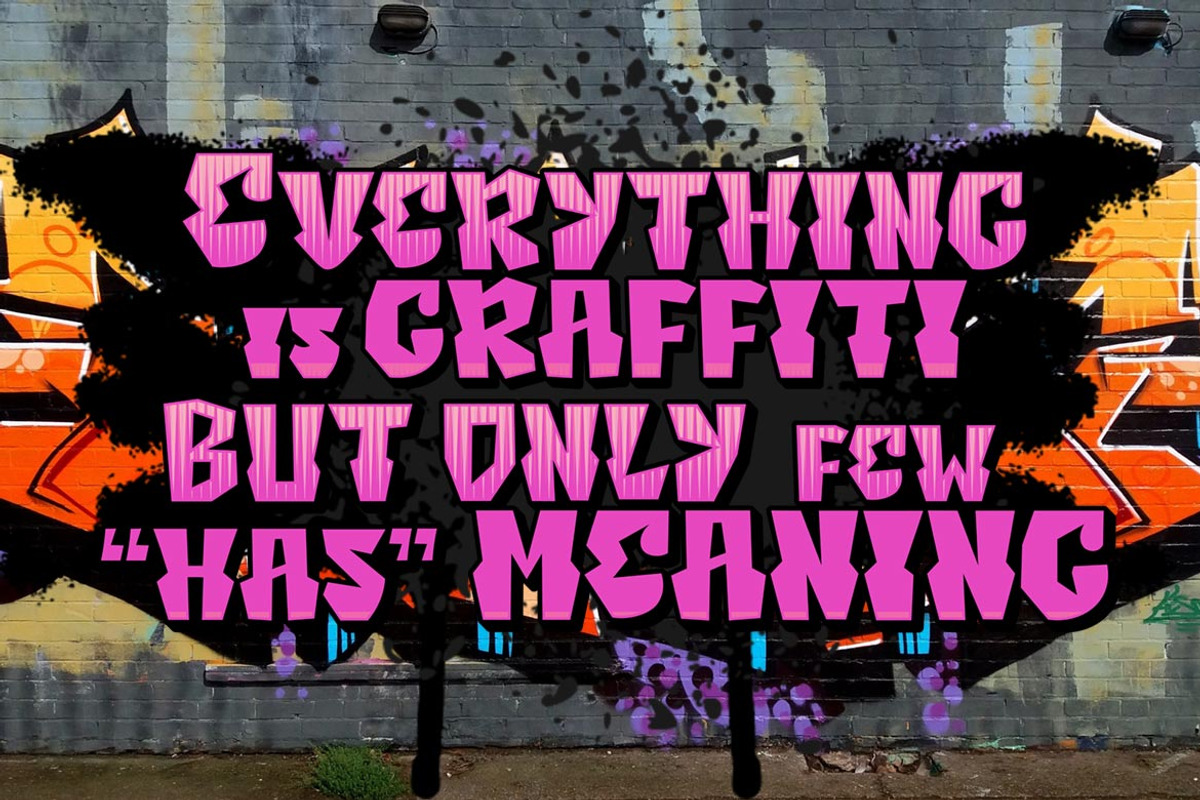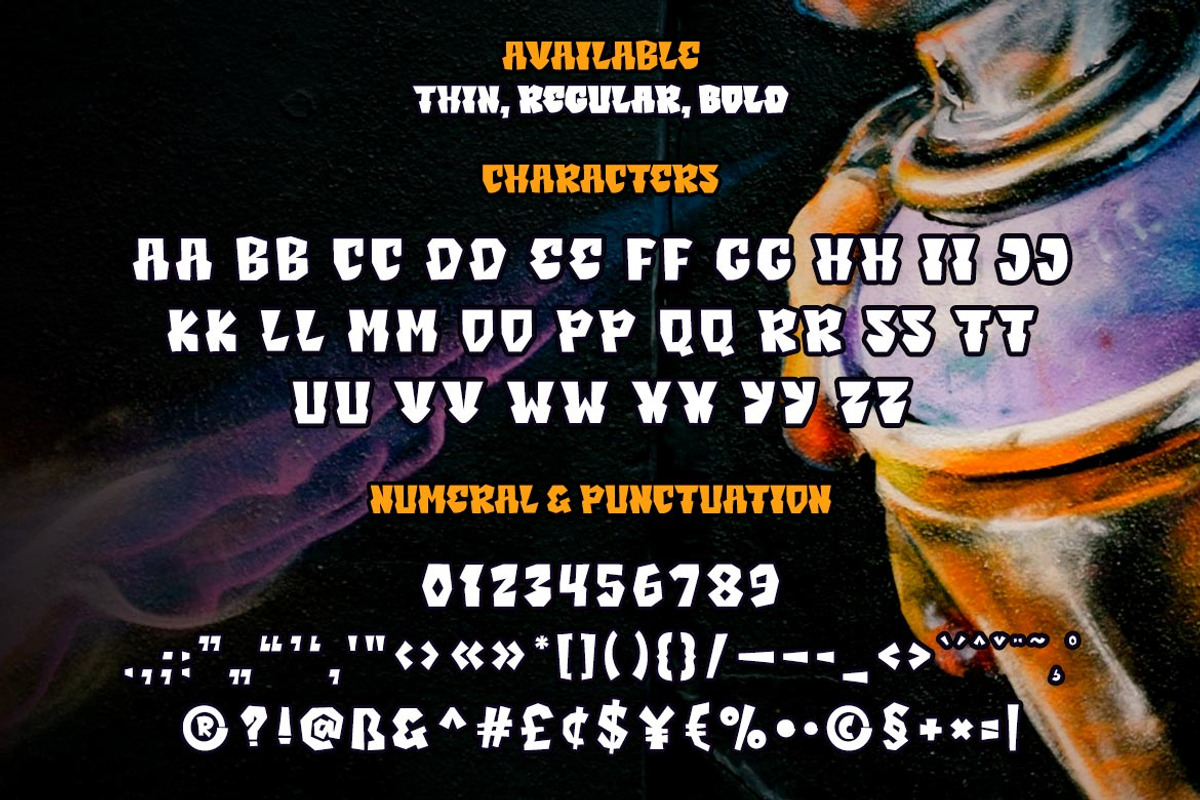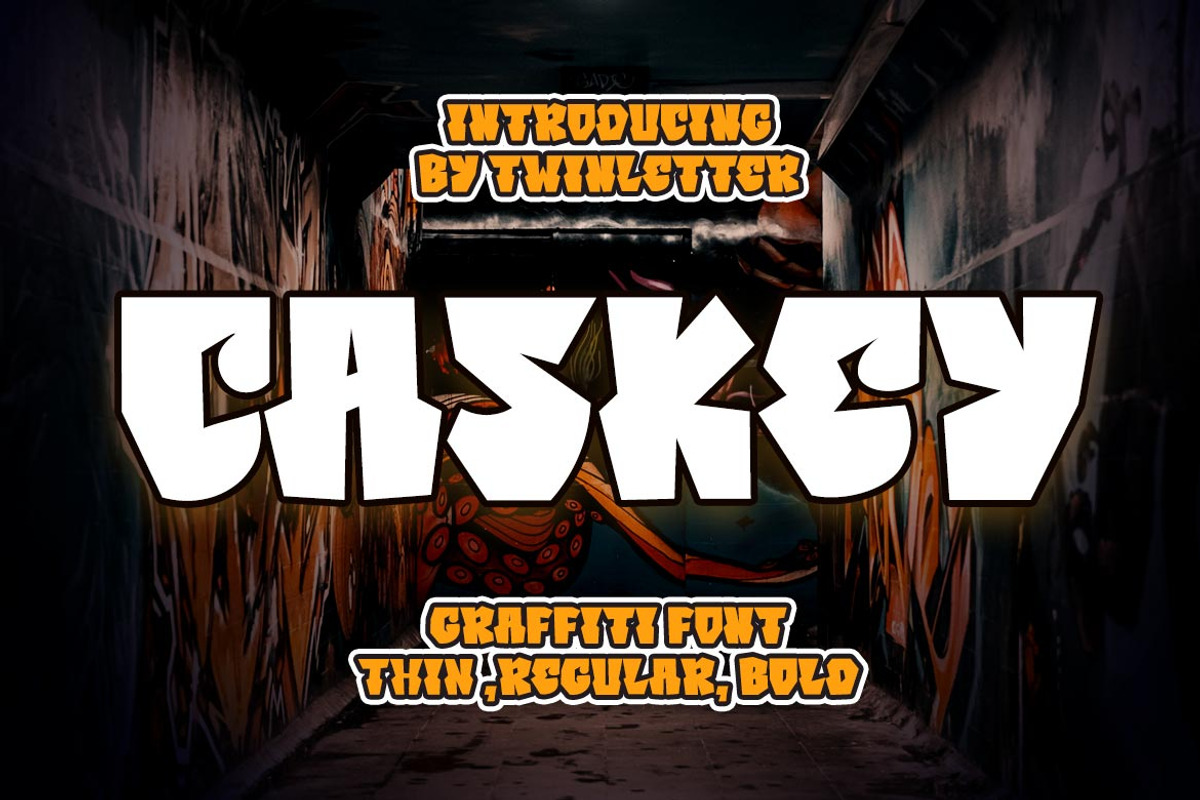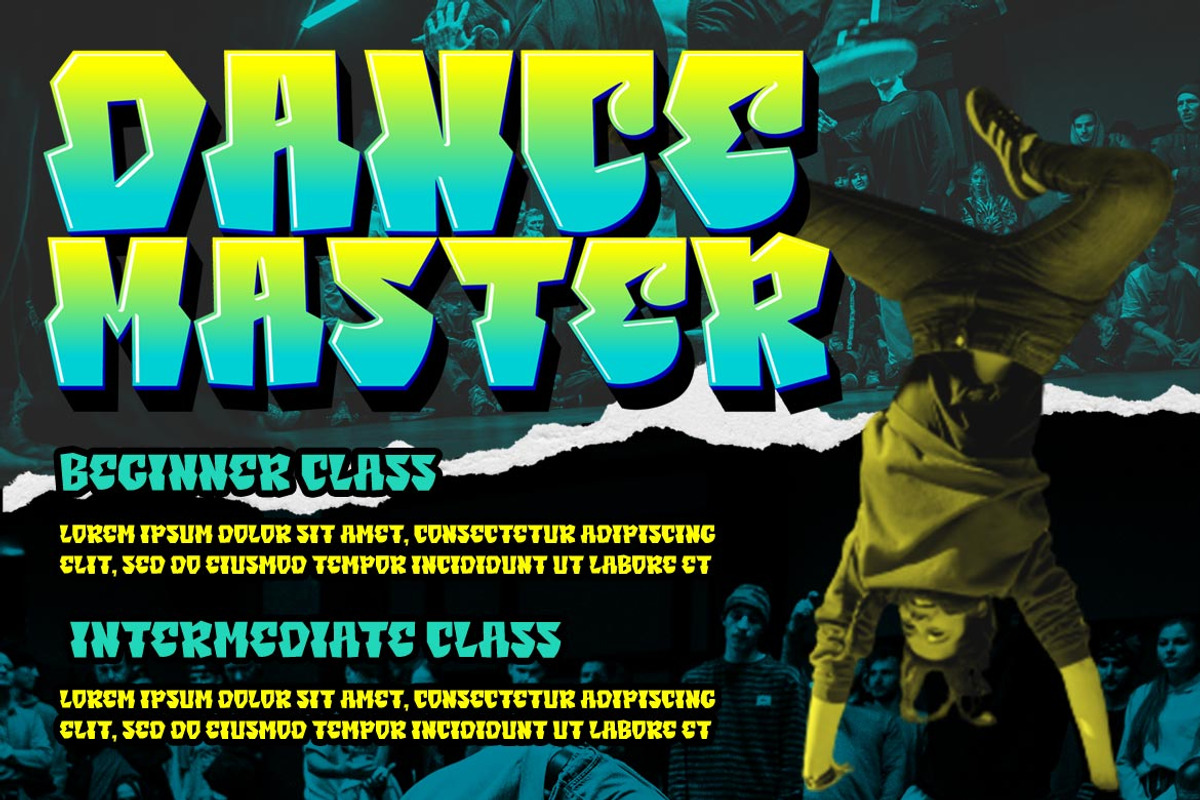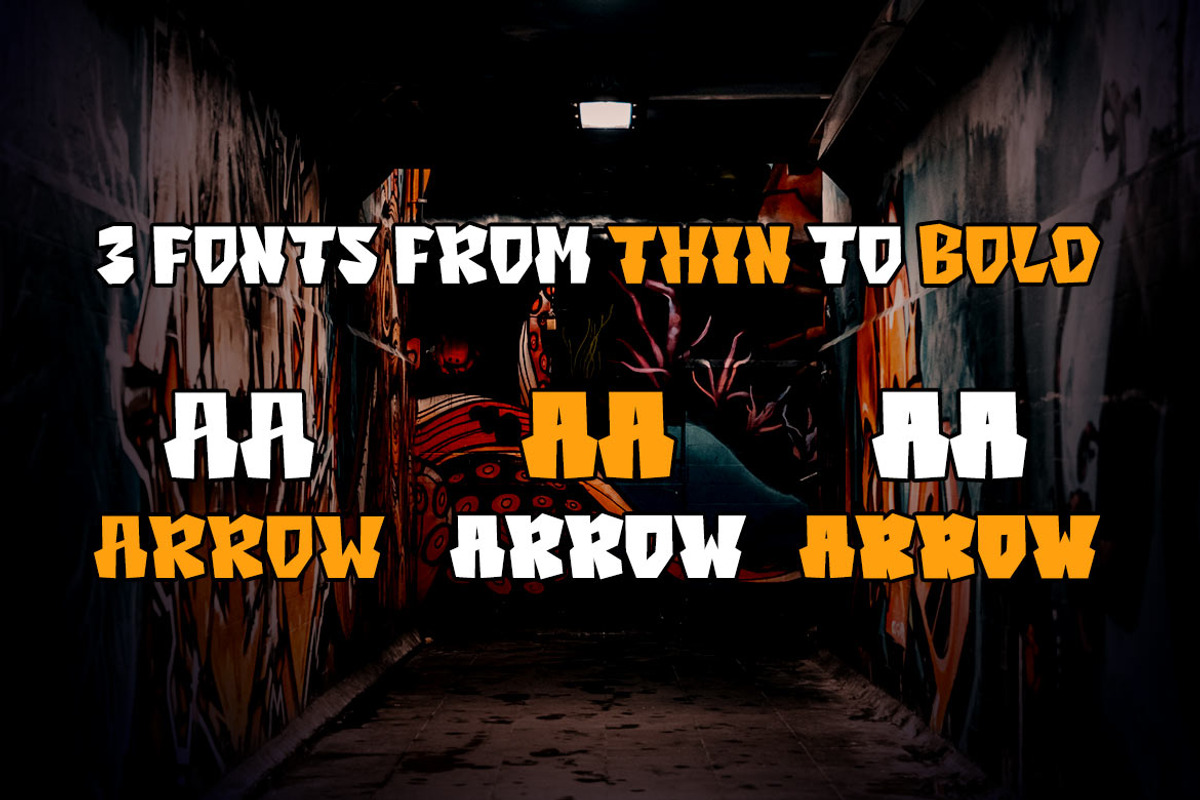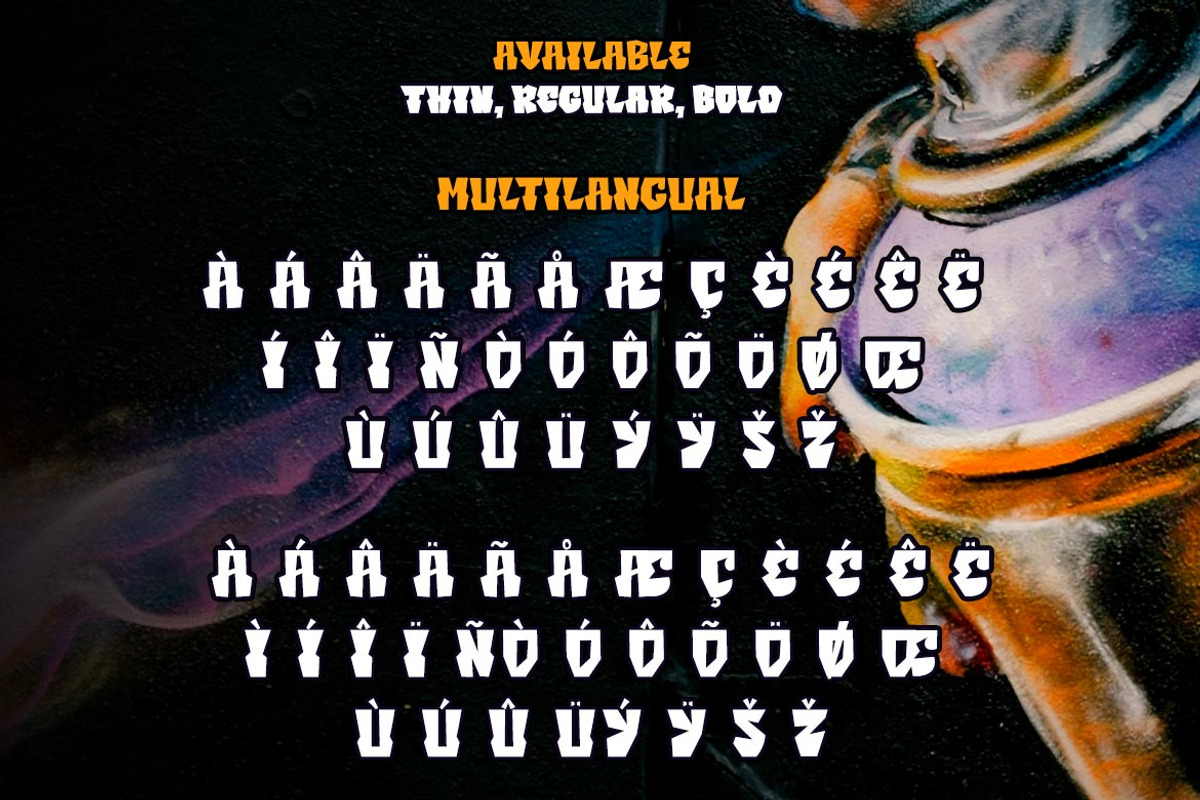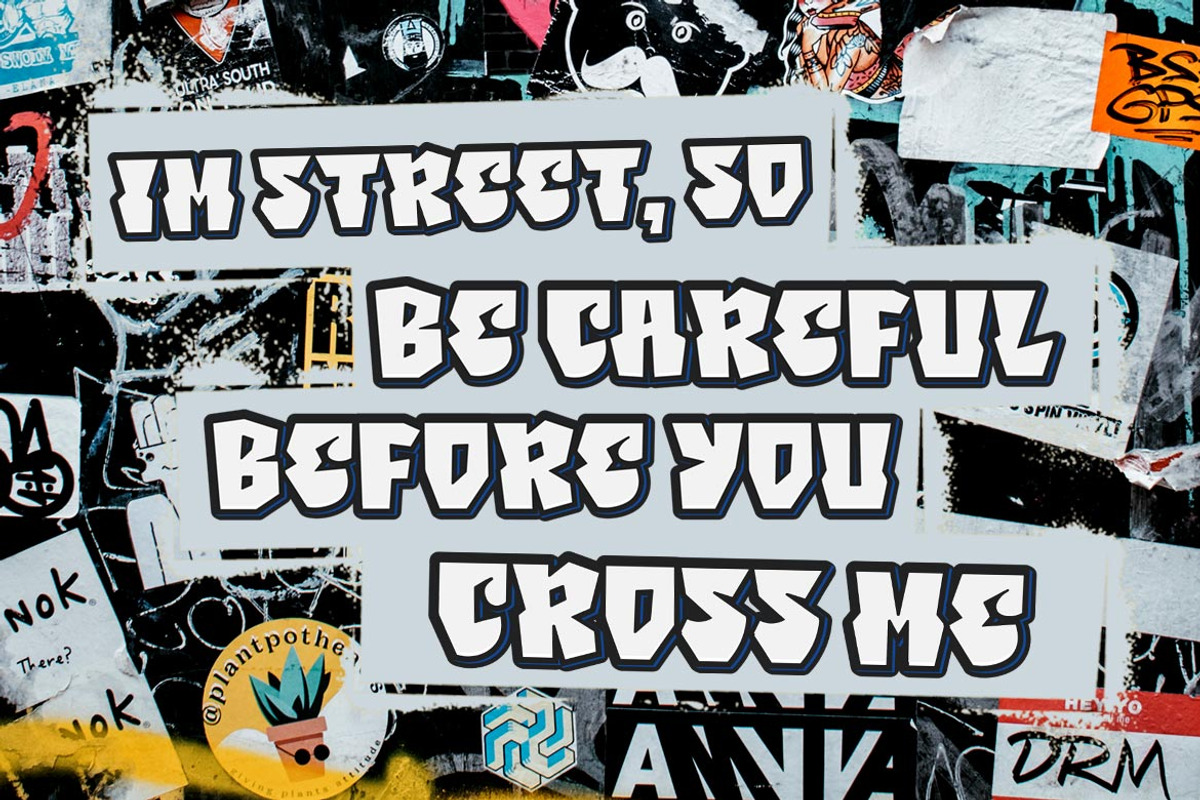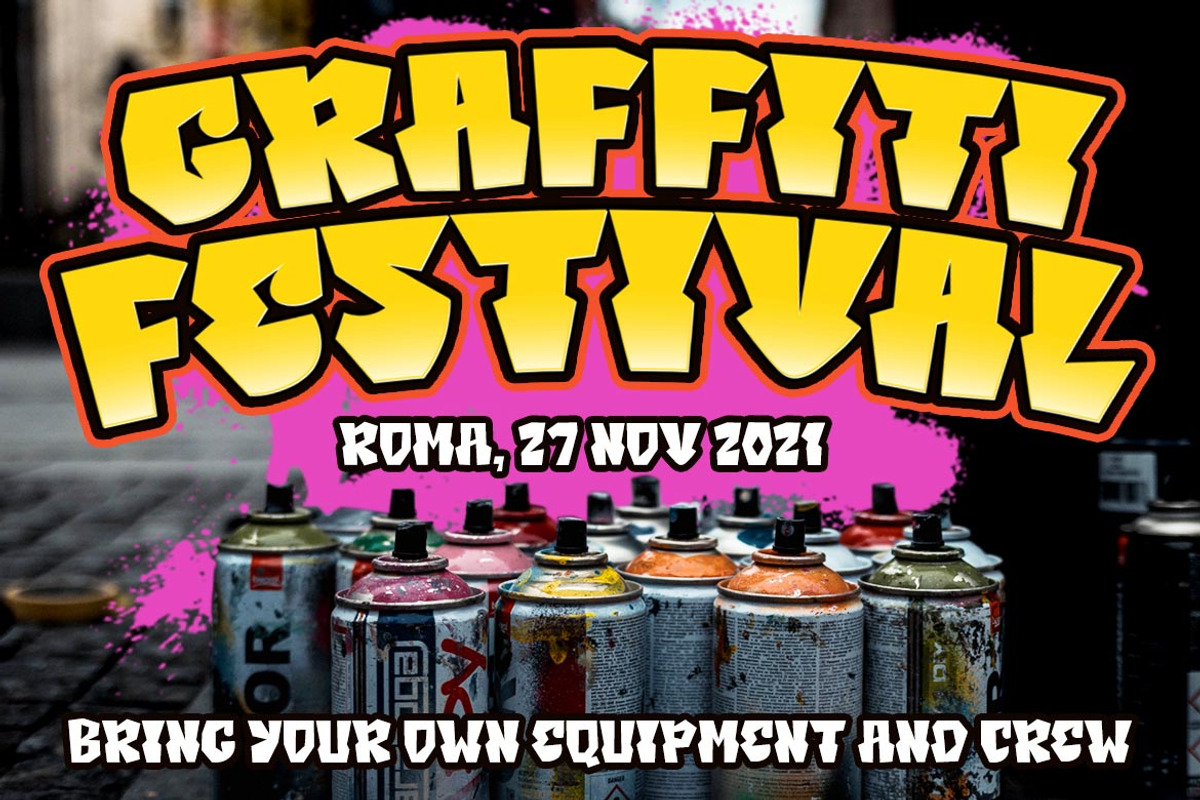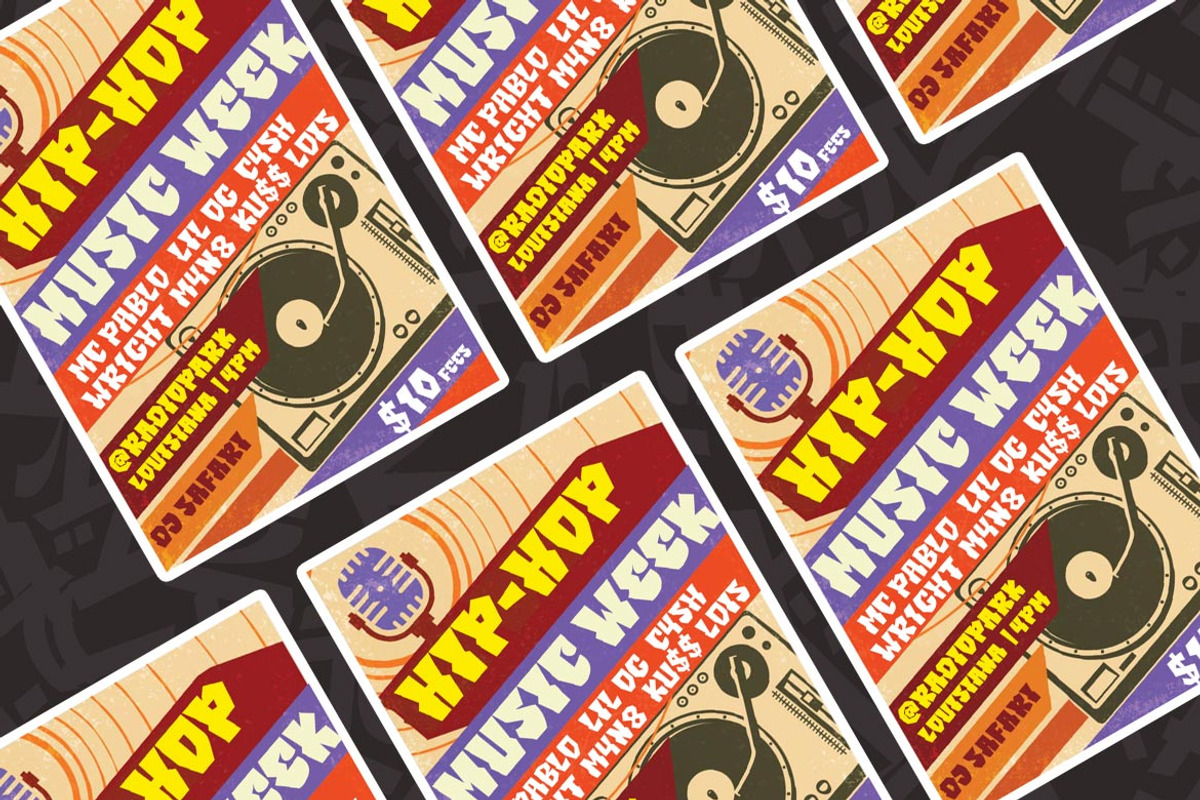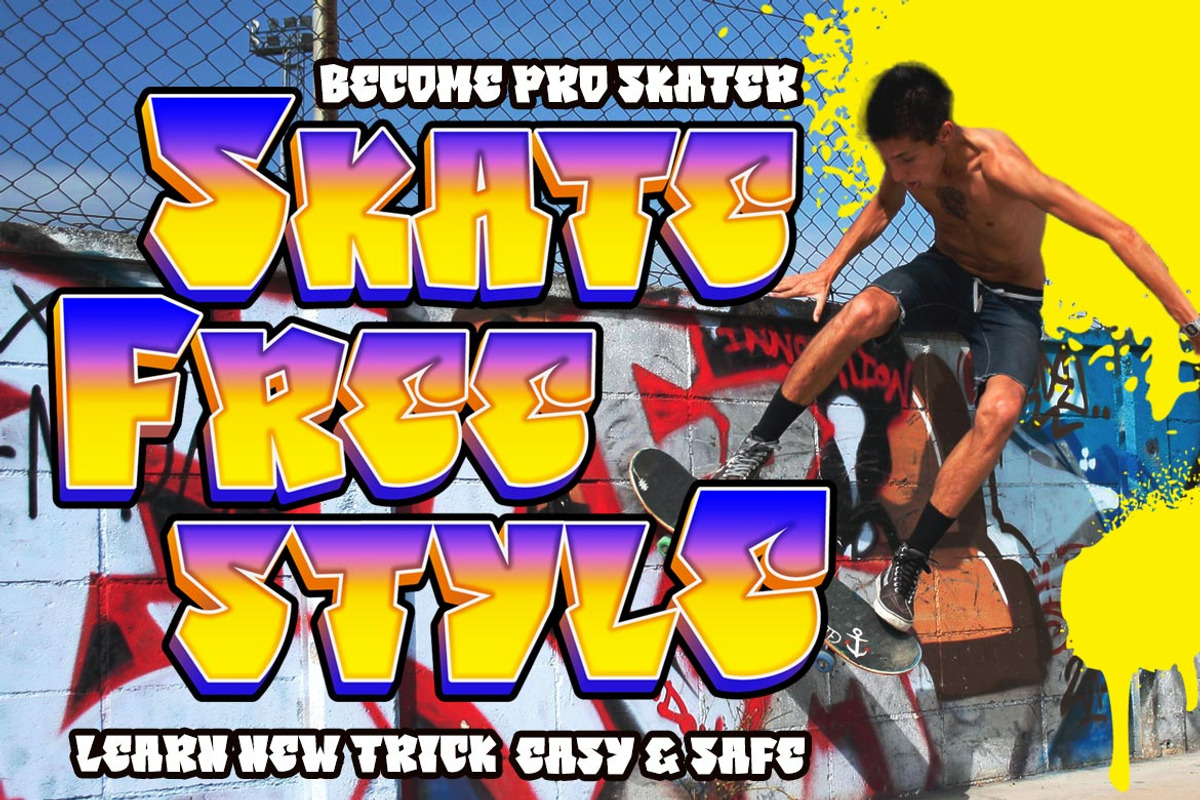
Caskey
Caskey is a unique font with a graffiti motif, outdoor activities, and an abstract display with gorgeous graphics. We put all of it into this typeface, which we dubbed Caskey. We also include alternates, ranging from thin to thick, to make it easier for you to use; you are free to choose whichever suits you best. Now is the time to use this typeface to bring your specific project to life.
This graffiti font is great for product logos, poster titles, headlines, packaging, film titles, logotypes, gorgeous writing, and trendy graffiti designs, among other things.
Of course, if you utilize this font in your numerous creative projects, they will be perfect and outstanding. Use this typeface right away for your one-of-a-kind and remarkable projects.